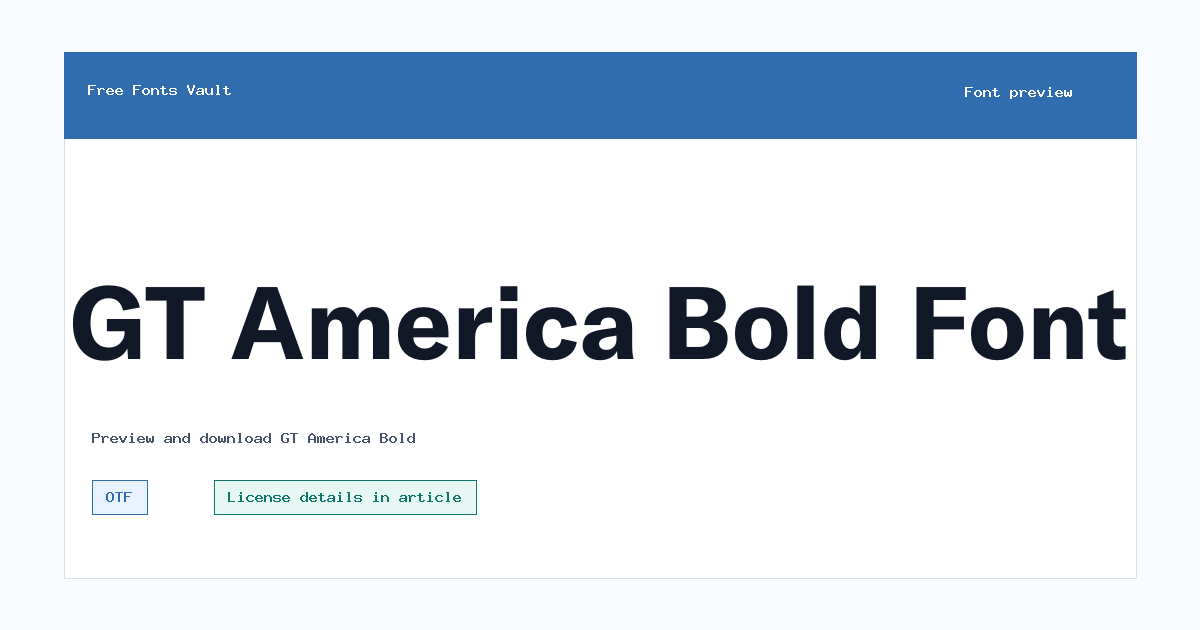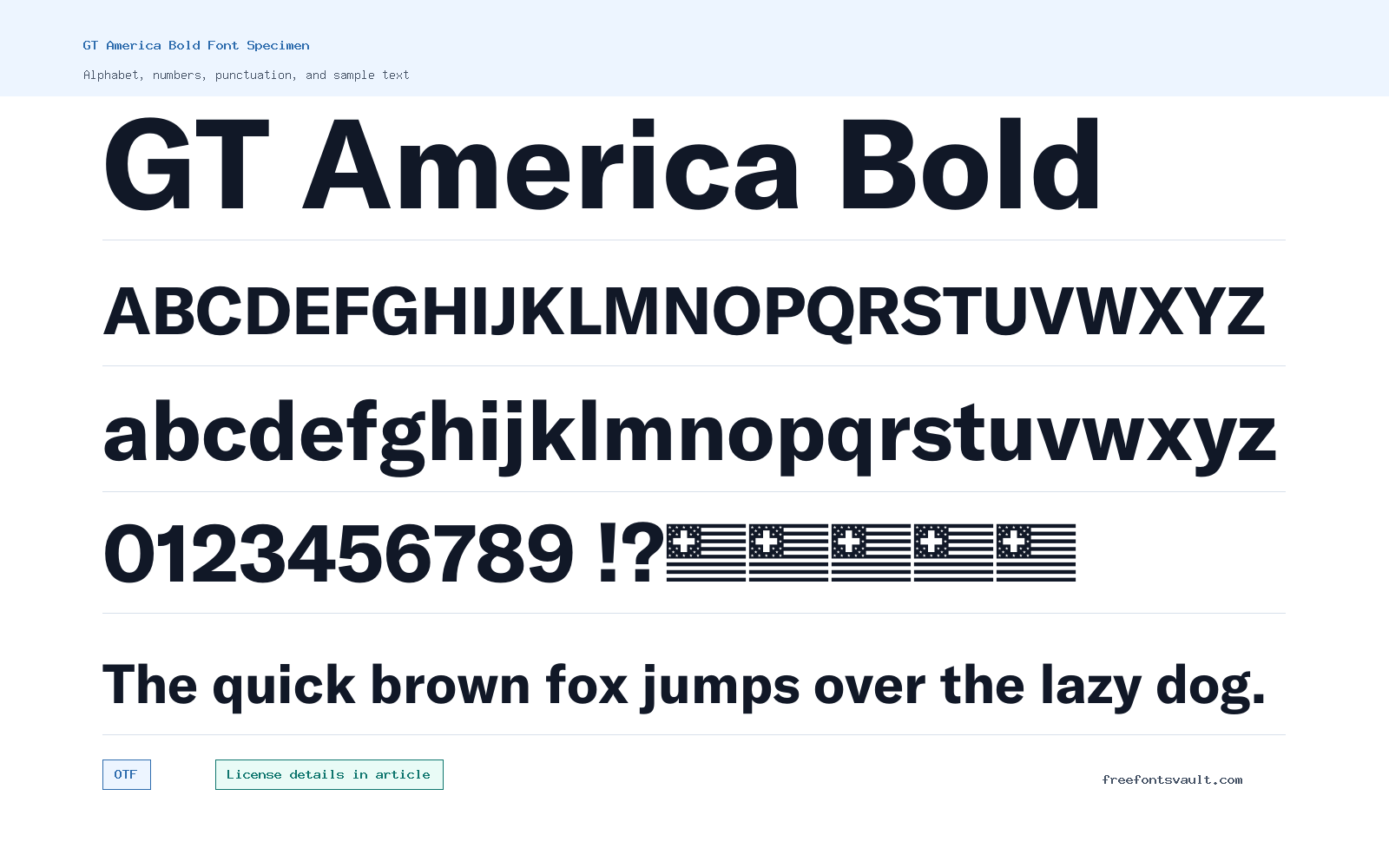
GT America Bold
- Designer Noël Leu
- Foundry Grilli Type GmbH
GT America Bold font.
GT America Bold is a strong 700-weight sans serif entry with upright and italic OTF files. It is useful for previewing confident headlines, navigation labels, poster text, and brand-direction layouts where the type needs clear weight without becoming decorative.
About GT America Bold
The entry offers two practical styles for testing: GT America Bold and GT America Bold Italic. Both are listed at 700 weight, so the family is best approached as a bold display or emphasis choice. The upright style gives direct, steady impact, while the italic style can add motion or stress to a short phrase without changing the overall typographic voice.
Use the preview with the actual words from your project. Bold sans serif fonts can look clean in a single headline but feel heavy in longer copy, especially in tight sidebars, menu labels, or small mobile UI. Try uppercase, lowercase, numbers, punctuation, and button text. If the line feels crowded, add spacing or pair it with a calmer text face for paragraphs and descriptions.
- Both styles use a 700 font weight for strong emphasis.
- Clean sans serif direction suited to headlines, labels, and short UI text.
- Italic companion style for short emphasis, captions, or title contrast.
- Better for display and emphasis than paragraph-length reading.
- Website headings, hero text, and product title mockups.
- Navigation labels, buttons, badges, and compact interface text after readability testing.
- Posters, banners, social graphics, and editorial title treatments.
- Brand direction studies that need a sturdy modern sans serif voice.
- Short emphasis lines where the italic cut can add controlled movement.
Preview both styles at the final size. Use the upright style for the clearest headline read, then test the italic style only where emphasis helps. Avoid using a bold weight for long passages unless the layout has enough spacing and contrast.
Is GT America Bold good for body text?
It is better for headings, labels, and emphasis. For paragraphs, pair it with a lighter, calmer reading font.
Test the real headline, button labels, numbers, punctuation, and both upright and italic styles at the size you plan to use.